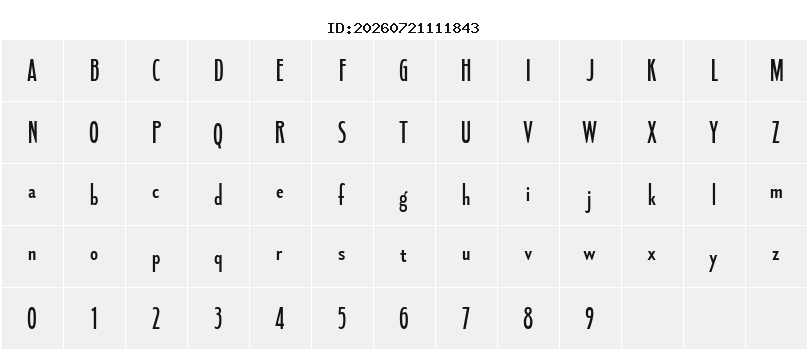
Fledgling Sb Preview
• Font Name: Fledgling Sb
• Designer: Ray Larabie
About Fledgling Sb.ttf
Fledgling Sb.ttf is a modern, elegant sans-serif font designed for ultimate readability and visual harmony. Perfect for branding, headlines, web design, and print materials.